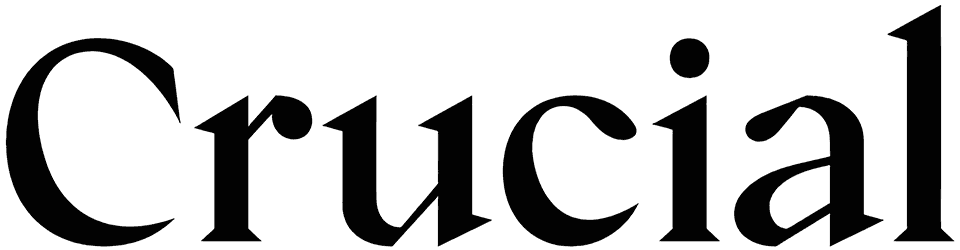
Crucial Font
For a modern and formal design, you can always count on a serif font like this option to give a professional visual to your words. The unique style of the Crucial font’s letters is going to reflect a noble and creative vibe to your audience. There is a full cover of characters in two versions, which means you can use this real estate font to create a chic architectural designer business card.